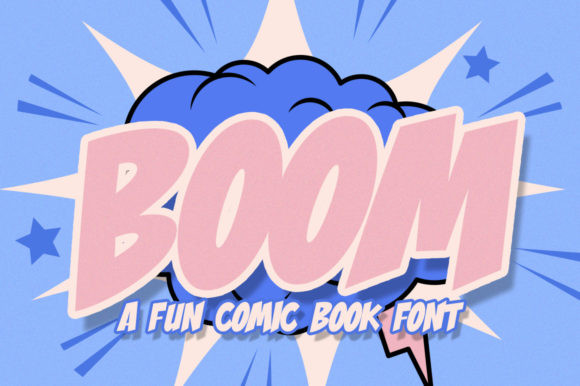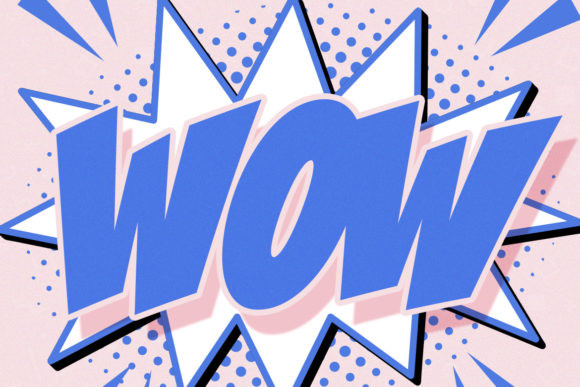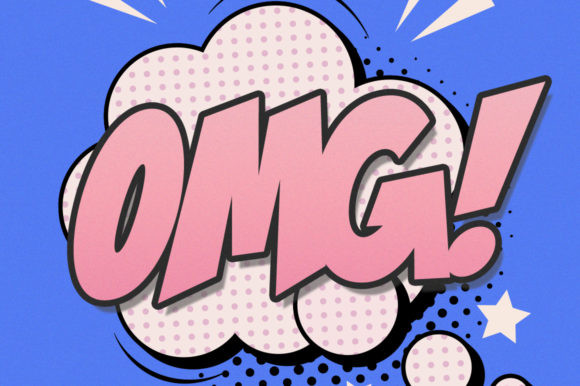
Boom Comic Font
Boom Comic is a fancy display font. It’s perfect for adding a little kapow to your designs. Use it for posters, book covers, flyers and much more!